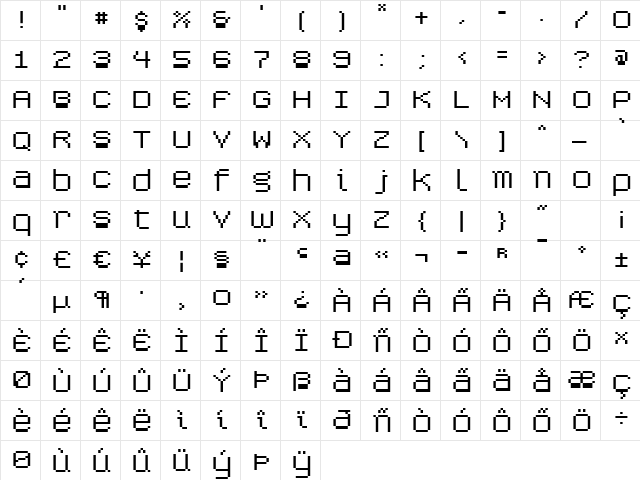
Caliper ExtraWide
| Foundry | YouWorkForThem |
| Designer | Michael Cina |
Design Context for Caliper Typeface
Caliper takes a measured approach to typography — its balanced proportions and neutral character make it a reliable workhorse for both digital and print work.